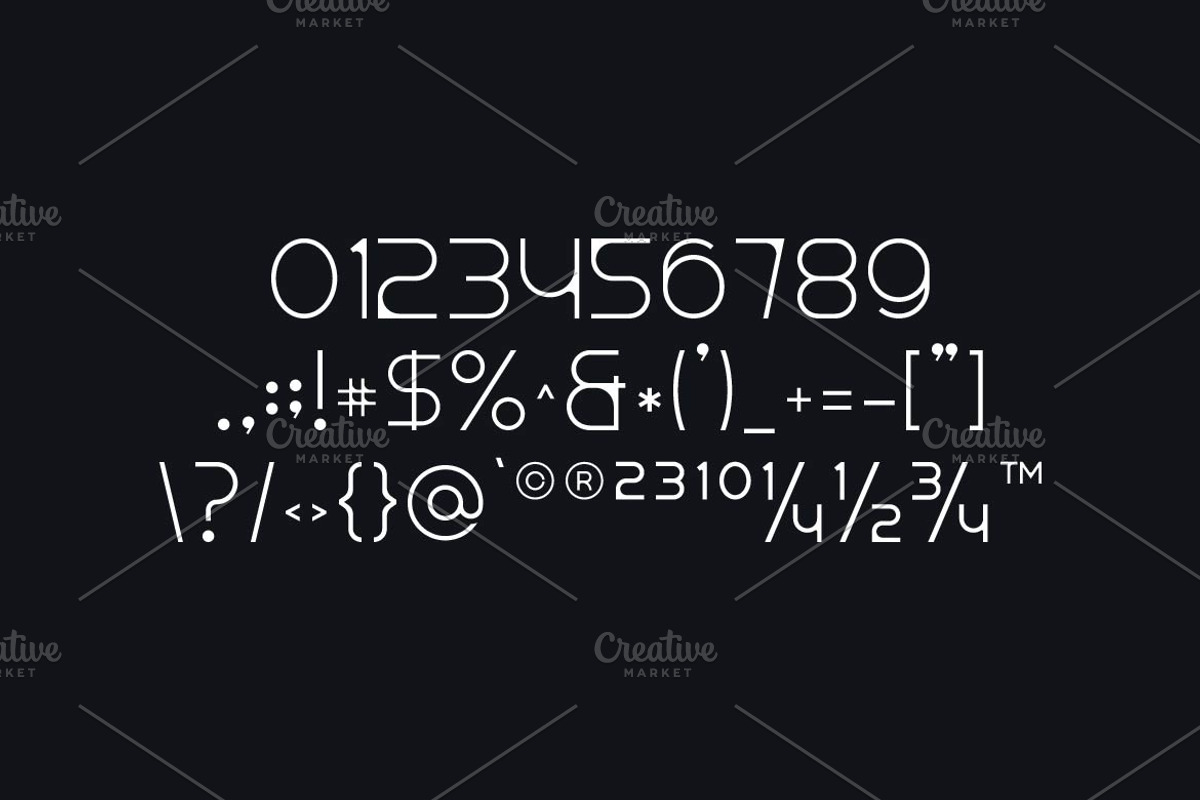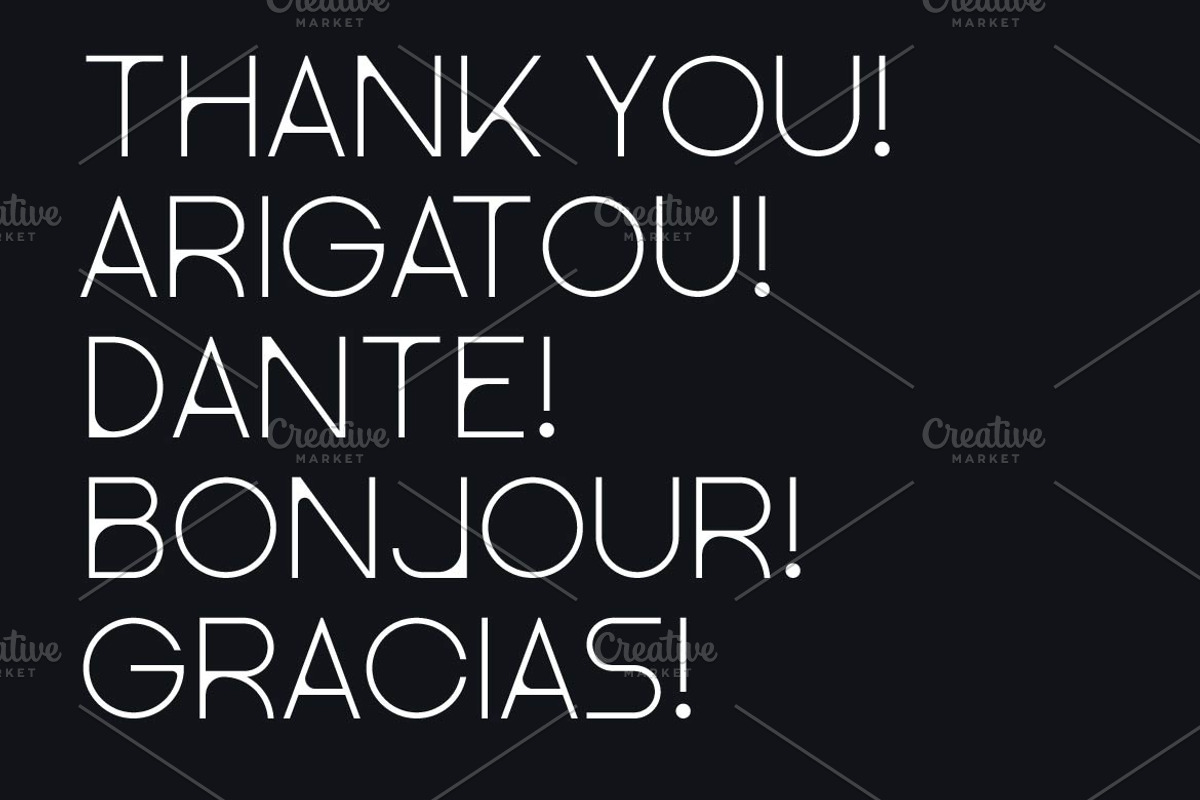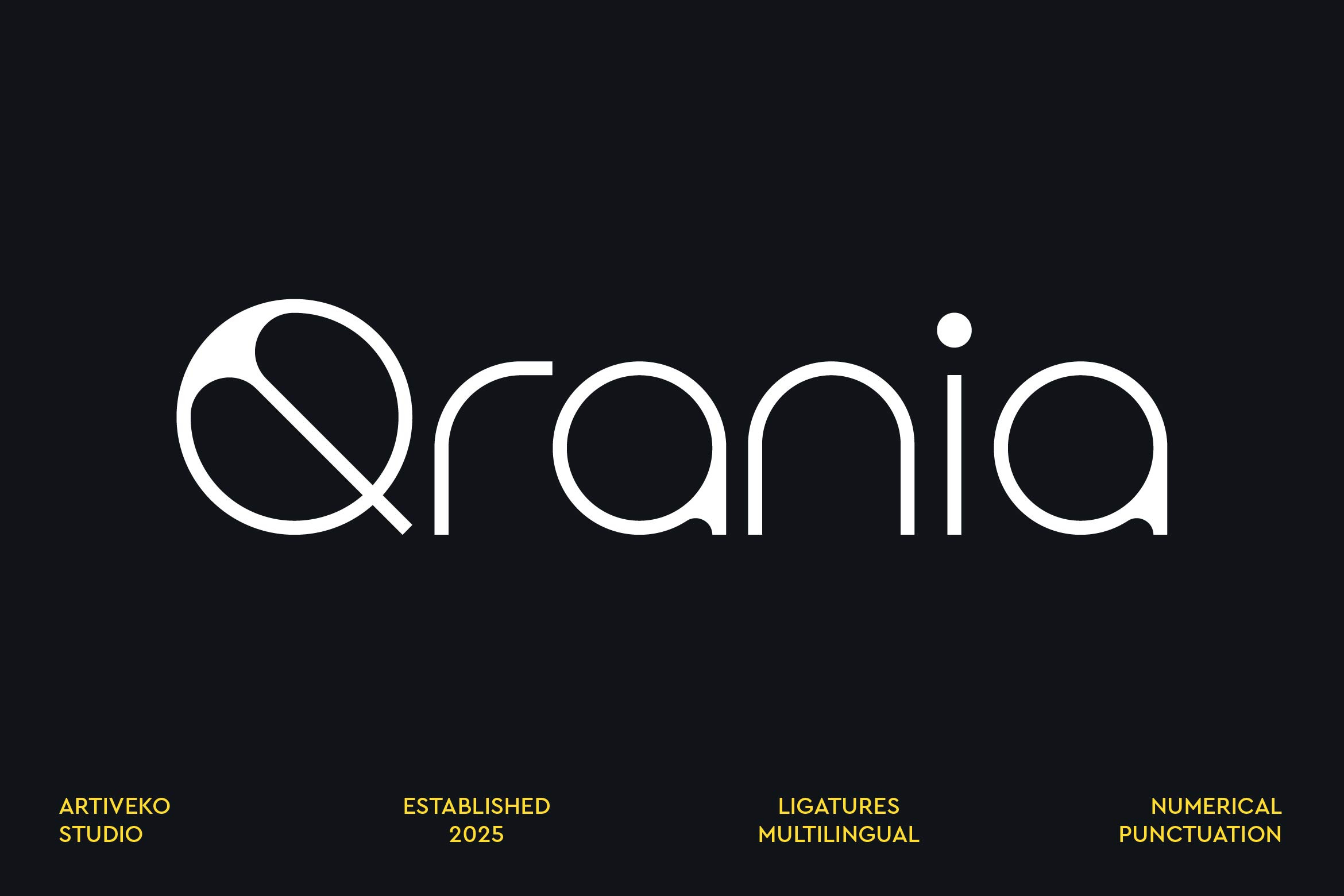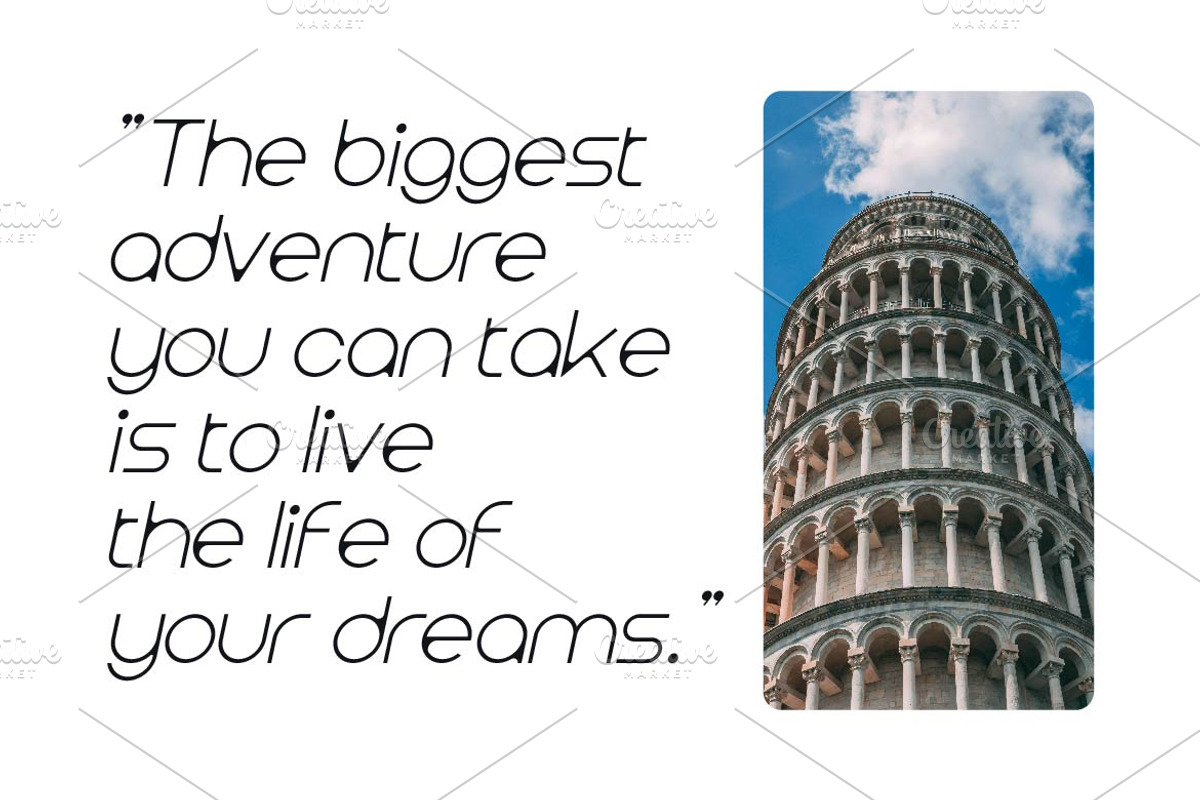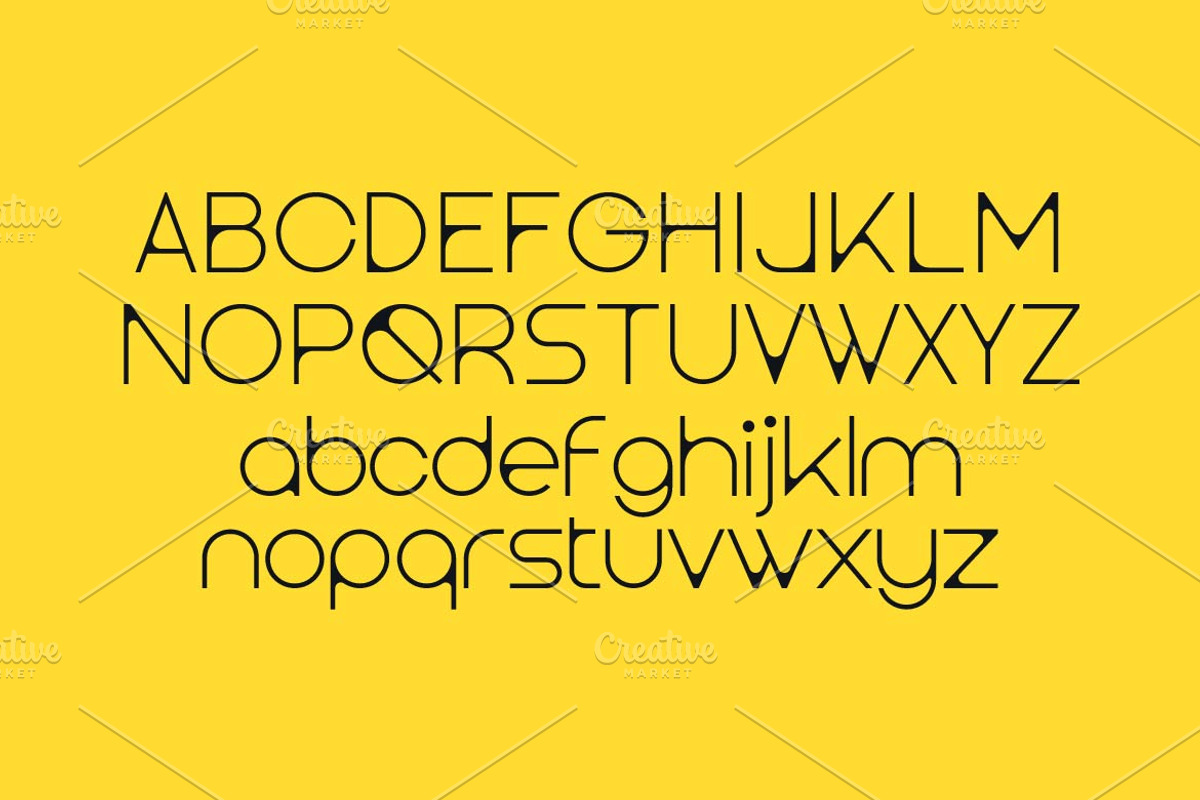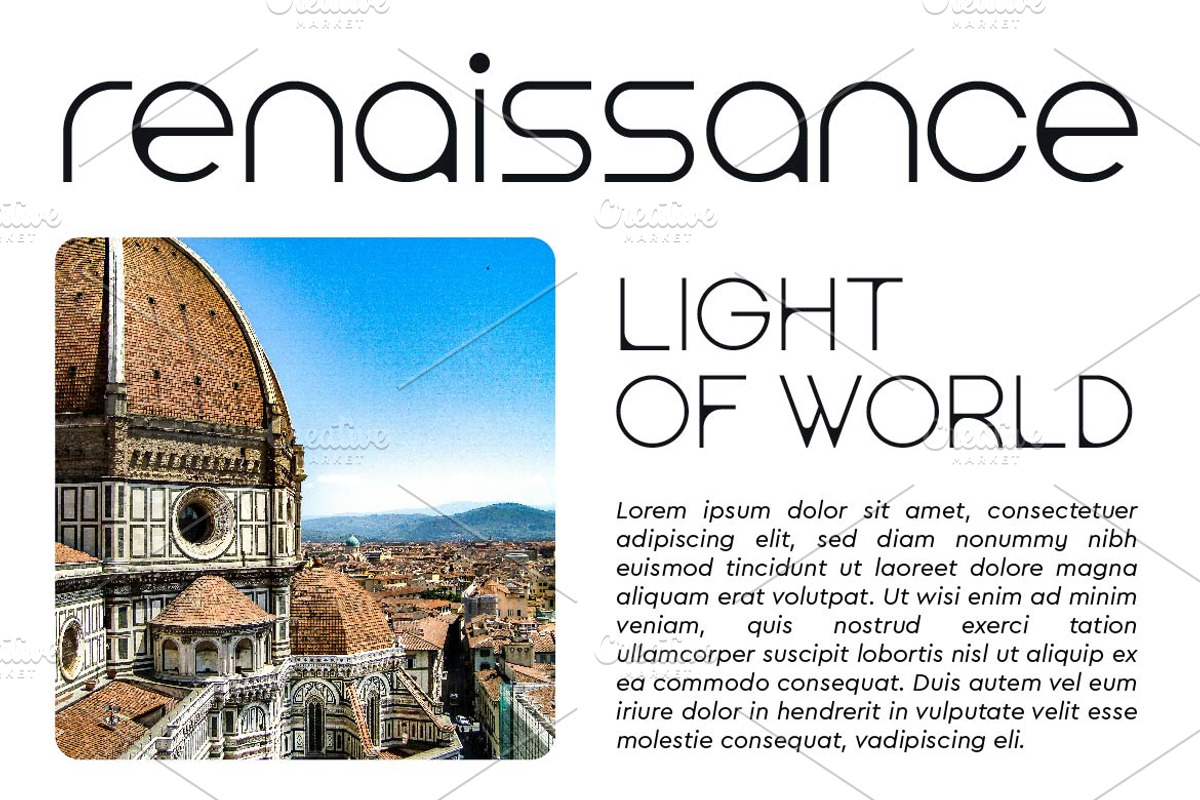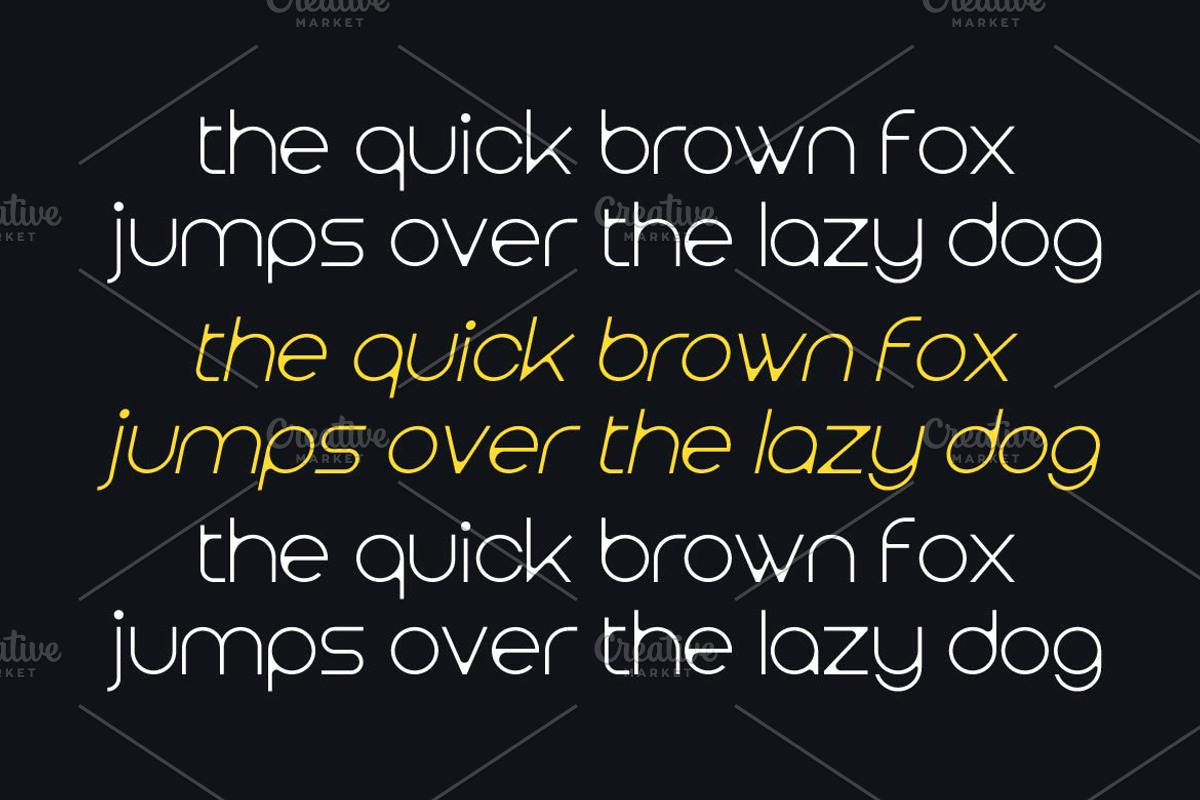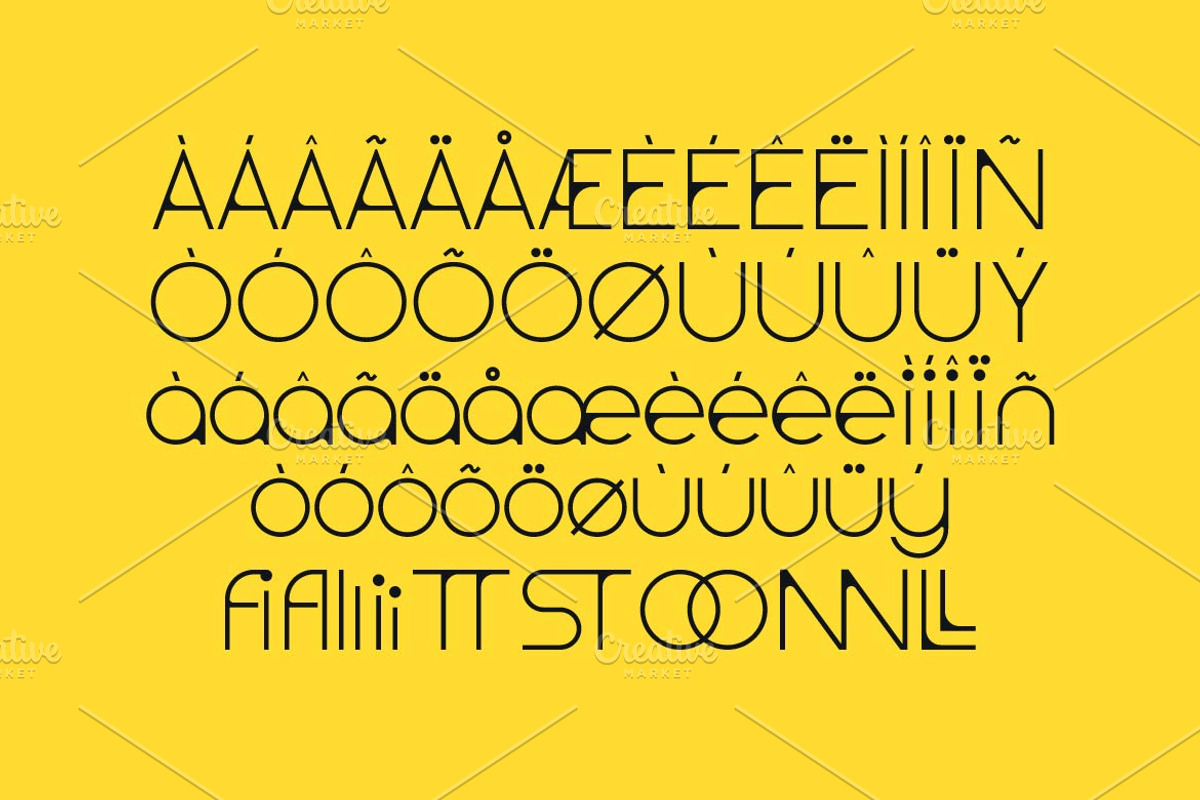
Qrania Minimalist Sans Font
Qrania is a minimalist simple sans serif font by Iwan Alwan, designed with clean lines and a modern aesthetic for a sleek and contemporary look. Perfect for branding, web design, editorial layouts, and corporate projects, Qrania embodies simplicity with a touch of elegance. Featuring multilingual support, ligatures, and alternates, this versatile typeface ensures clarity and sophistication, making it an excellent choice for designs that prioritize minimalism and readability.